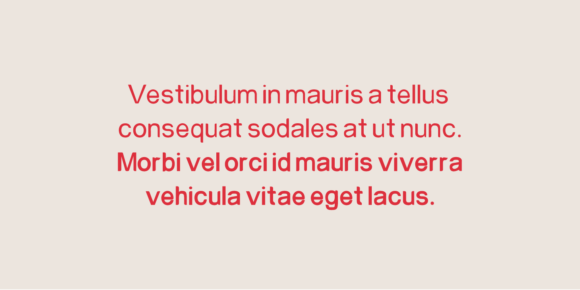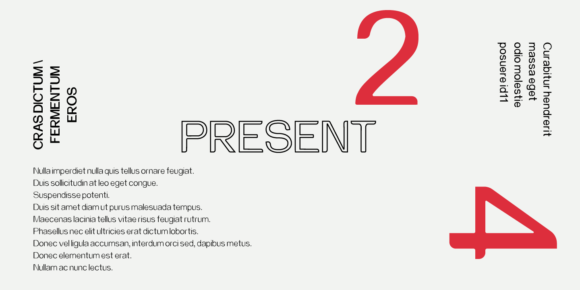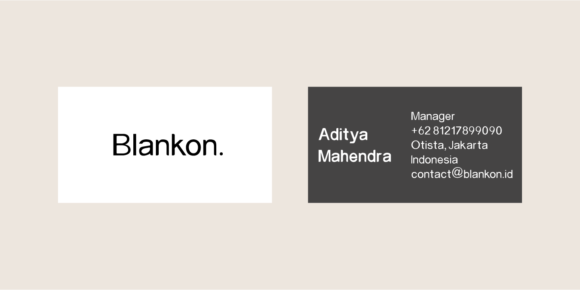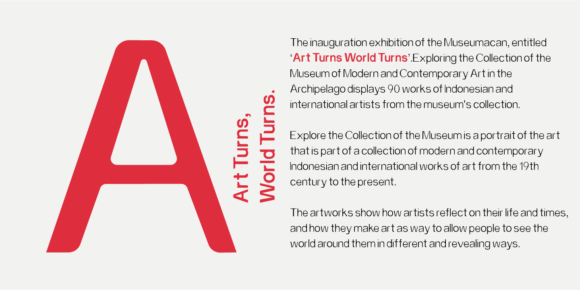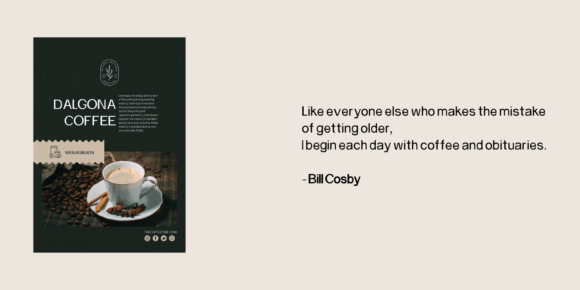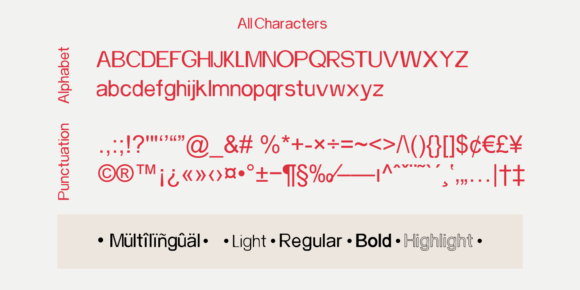
Introducing Andallan Font: A Versatile Sans Serif Font from LetterCraft Studio
Are you a designer or crafter looking for a reliable and stylish font for your next project? Look no further than Andallan, a sans serif font from LetterCraft Studio. Released as the second font from the studio, after the popular free font ‘Tulehu’, Andallan has quickly gained attention for its unique characteristics and versatility.
What Makes Andallan Font Stand Out?
Andallan font comes in four families: Light, Regular, Bold, and Highlight, offering a range of options to suit various design needs. One of its distinctive features is the use of thick and thin characters, which adds a touch of elegance and sophistication to any text. This font is perfect for designers who want to add a professional touch to their work, whether it’s for personal or business projects.
Key Features of Andallan Font
- Four Font Families: Andallan offers four font families – Light, Regular, Bold, and Highlight – allowing designers to choose the perfect weight for their project.
- Thick and Thin Characters: The font’s unique character design, featuring thick and thin lines, adds visual interest and elegance to any text.
- Sans Serif Design: Andallan’s clean and modern sans serif design makes it perfect for a wide range of applications, from digital media to print materials.
- Versatility: Whether you’re working on a personal project or a business venture, Andallan font is reliable and suitable for various design needs.
Uses of Andallan Font
Andallan font is incredibly versatile and can be used in a variety of design projects, including:
- Branding and Logo Design: The font’s unique character design and range of weights make it perfect for creating logos and brand identities.
- Digital Media: Andallan font is optimized for digital use, making it suitable for websites, social media graphics, and more.
- Print Materials: The font’s clear and legible design makes it perfect for print materials, such as brochures, flyers, and business cards.
- Packaging Design: Andallan font can add a touch of elegance and sophistication to packaging design, making products stand out on store shelves.
Why Choose Andallan Font?
With so many fonts available, why choose Andallan? Here are a few reasons:
- Unique Design: Andallan font offers a unique and distinctive design that sets it apart from other fonts.
- High-Quality: The font is designed with high-quality and legibility in mind, making it perfect for a wide range of applications.
- Versatility: Andallan font is versatile and can be used in various design projects, from personal to business ventures.
- Easy to Read: The font’s clear and legible design makes it easy to read, even at small sizes.
| Font Name | Andallan Font |
| Author | LetterCraft Studio |
In conclusion, Andallan font is a versatile and stylish sans serif font from LetterCraft Studio. With its unique character design, range of weights, and high-quality design, it’s perfect for designers and crafters looking for a reliable font for their next project. Whether you’re working on a personal or business venture, Andallan font is sure to impress.